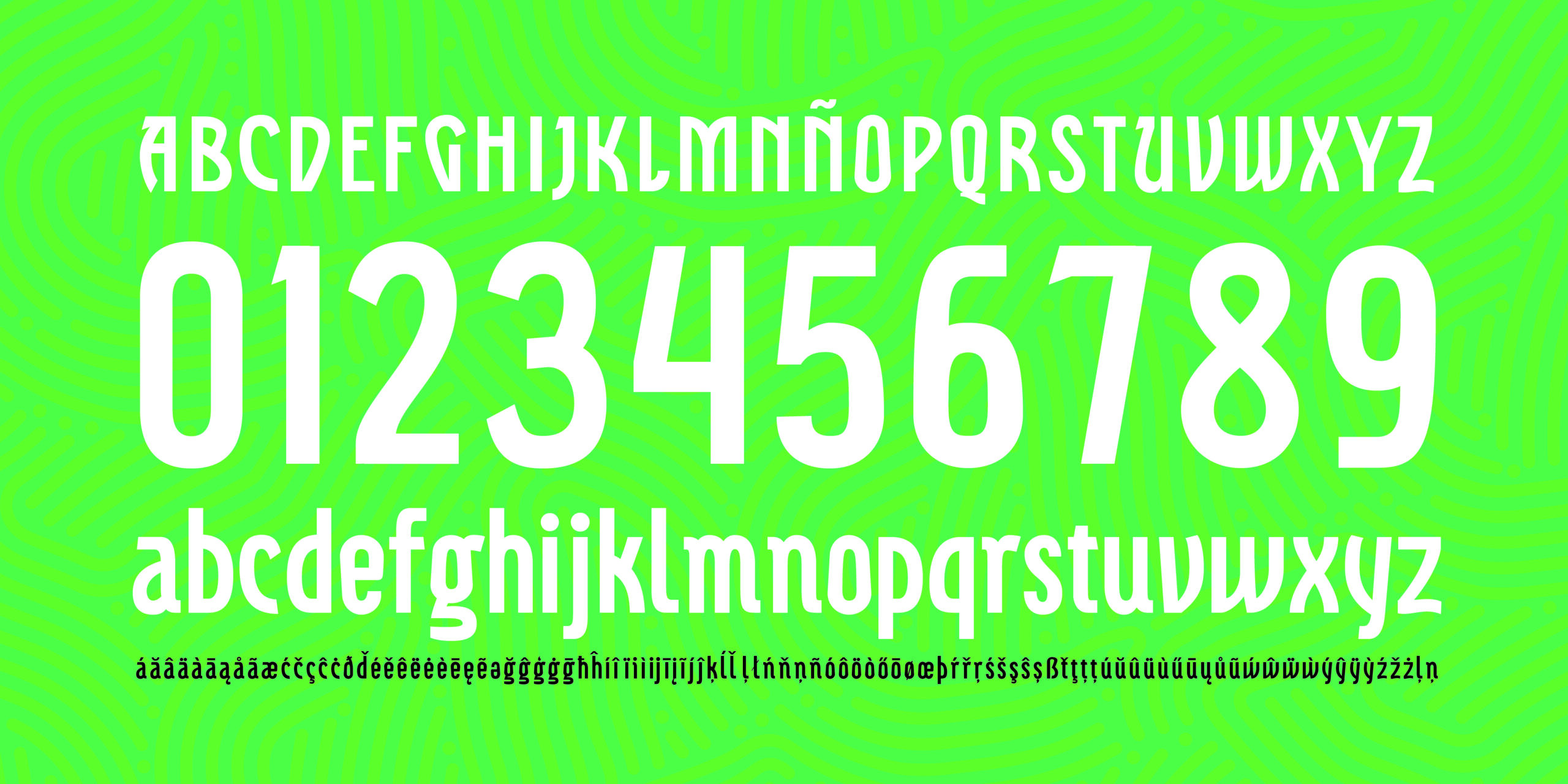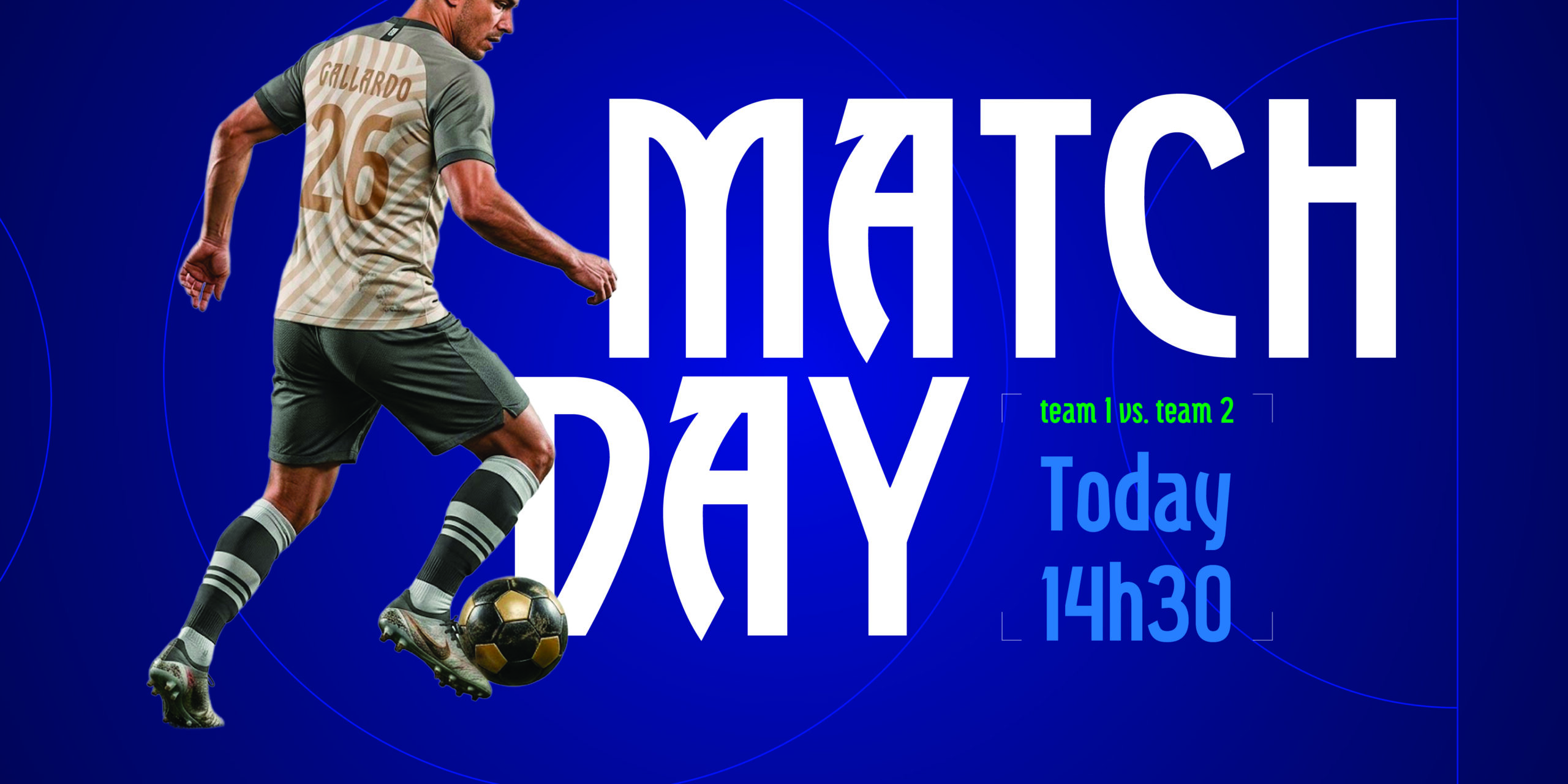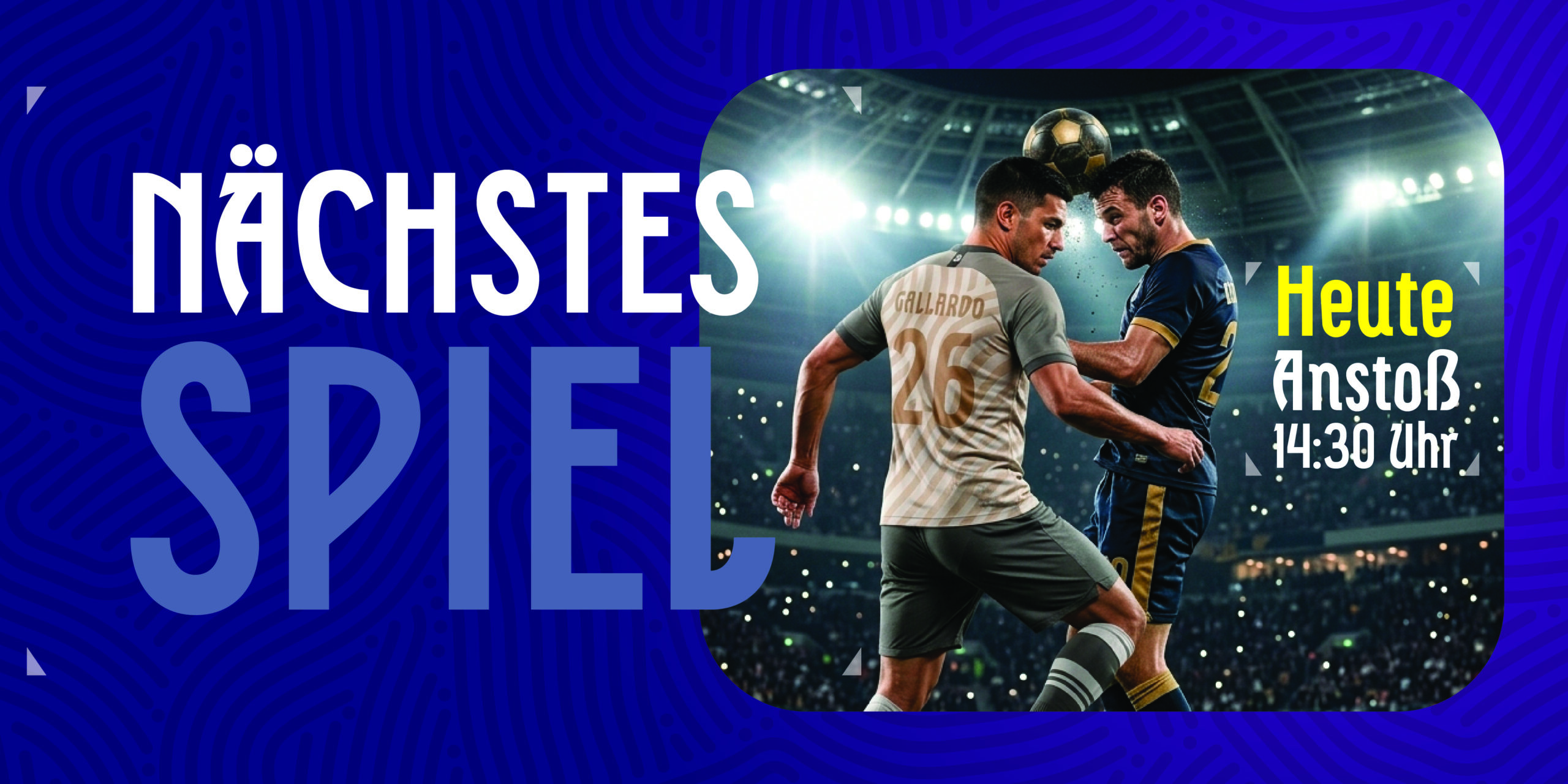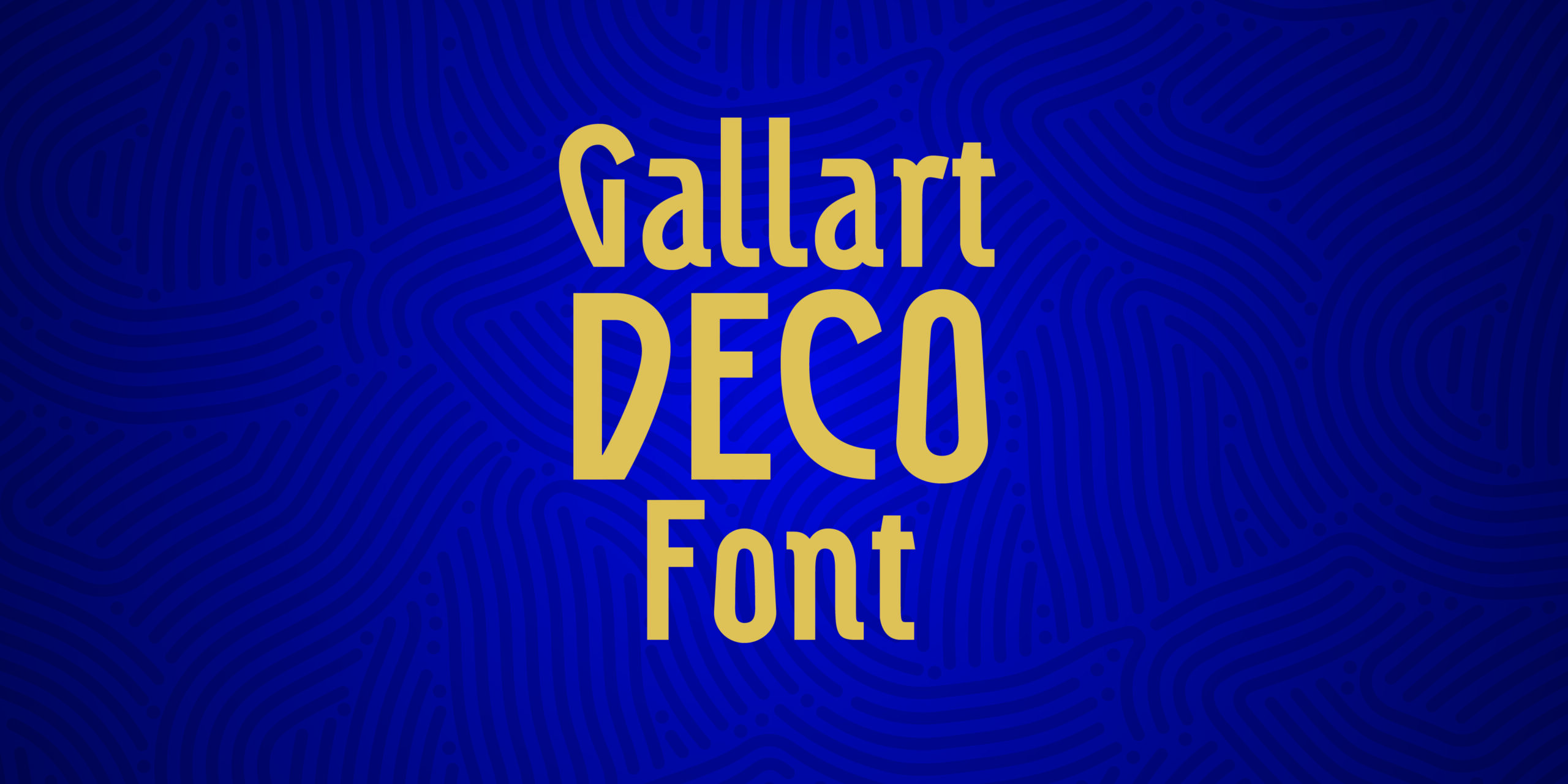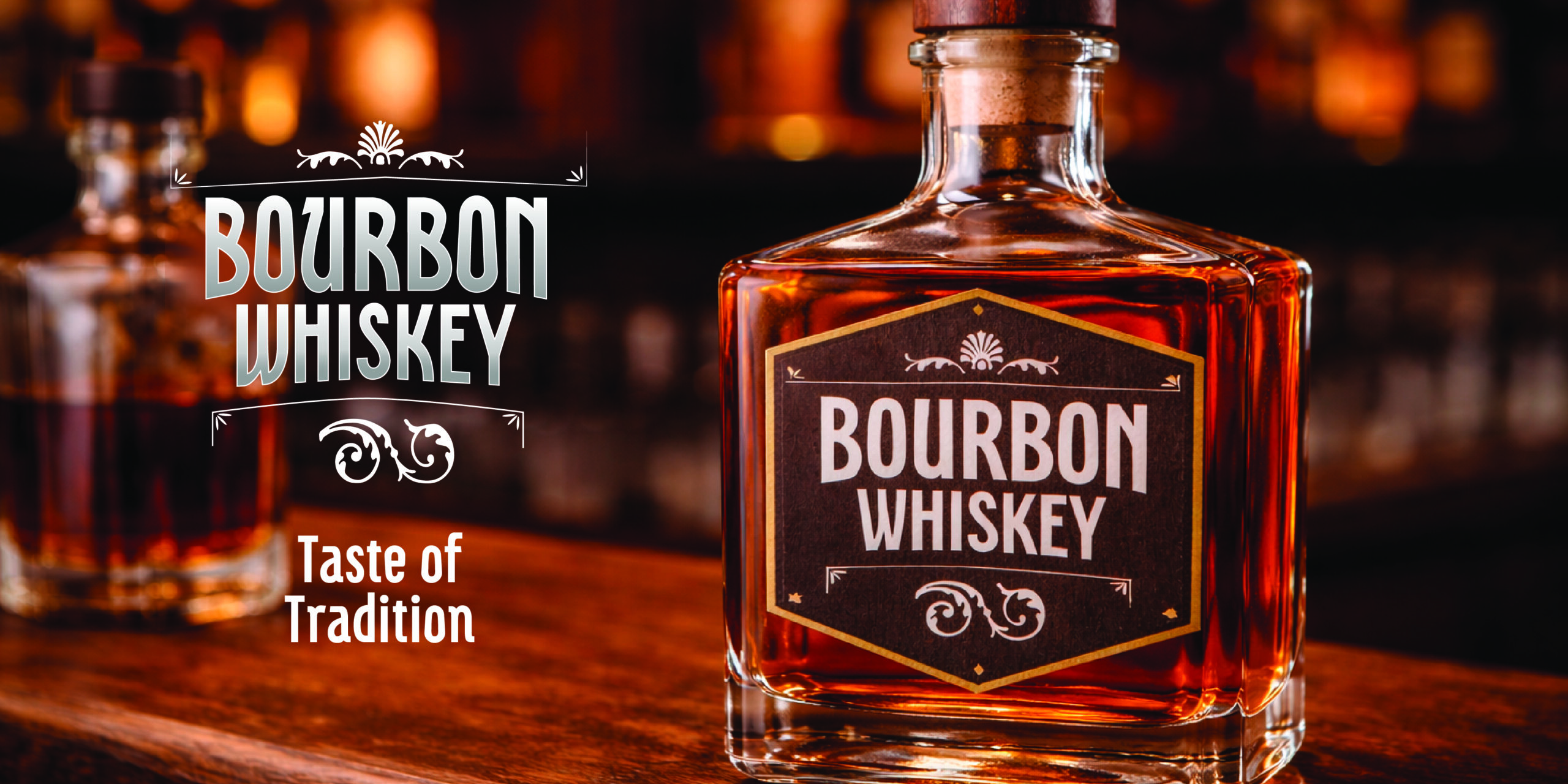
ENG: Gallart Deco blends heritage lettering with modern strength. Its bold geometric bones and imposing rhythm make it perfect for authoritative branding, moving effortlessly between Art Deco elegance and athletic dynamism.
Ideal for: Branding, Posters, Apparel, and Display use.
ESP: Gallart Deco fusiona la rotulación de herencia clásica con la fuerza moderna. Sus audaces estructuras geométricas y su ritmo imponente la hacen perfecta para un branding de autoridad, moviéndose sin esfuerzo entre la elegancia del Art Deco y el dinamismo atlético.
Ideal para: Branding, carteles, indumentaria y uso en gran formato (display).
Designed by: Carlos Candray
Country: El Salvador